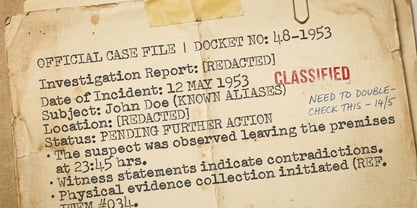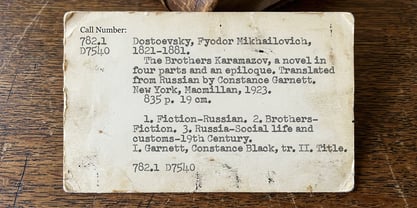
Royal Portasear
by Stiggy & Sands
The Royal Portasear Font Family was designed by Jim Lyles, Brian J. Bonislawsky and published by Stiggy & Sands. Royal Portasear contains 1 styles.
Royal Portasear captures the distressed, timeworn character of a well-used Sears portable typewriter, preserving the tooth, ink spread, and ribbon-worn irregularity of the original machine. Rather than cleaning away its flaws, the design embraces them, translating the grit and unpredictability of an aging typewriter into an expressive digital typeface. Optimized for smaller settings, Royal Portasear is especially well suited for editorial work, vintage documents, book interiors, dossier-style layouts, labels, posters, storytelling graphics, and typewritten ephemera. Alternate capitals, lowercase letters, and numerals add subtle variation, while contextual alternates can automatically cycle these forms during typing for a more natural and convincingly mechanical result.
Designers: Jim Lyles, Brian J. Bonislawsky
Publisher: Stiggy & Sands
Foundry: Stiggy & Sands
Design Owner: Stiggy & Sands